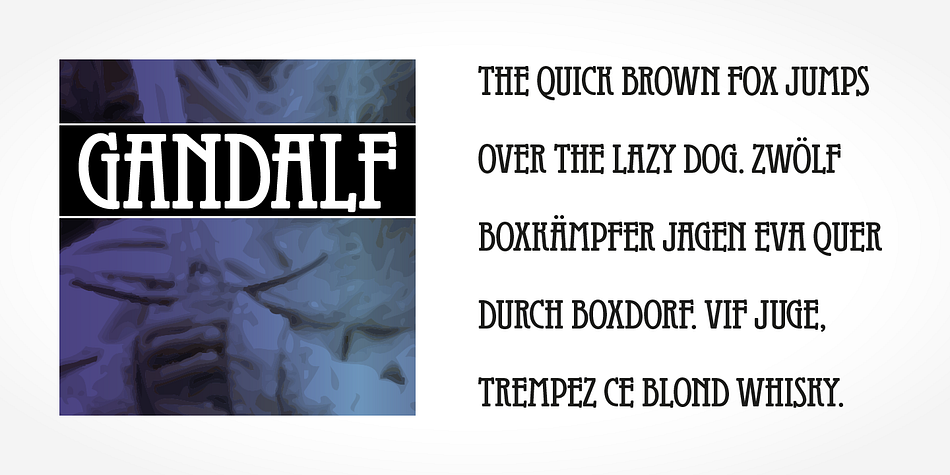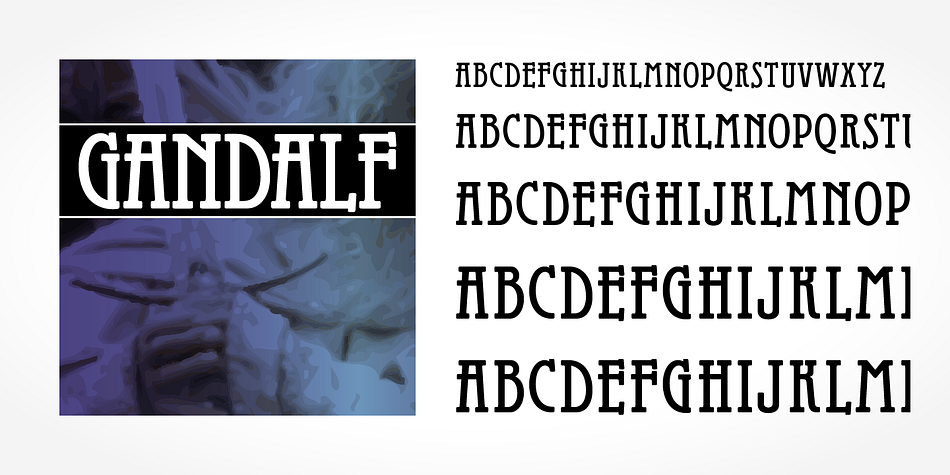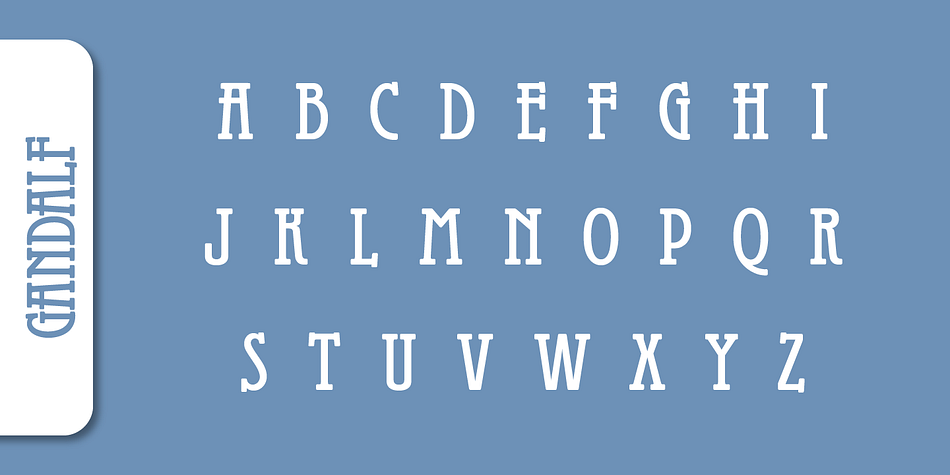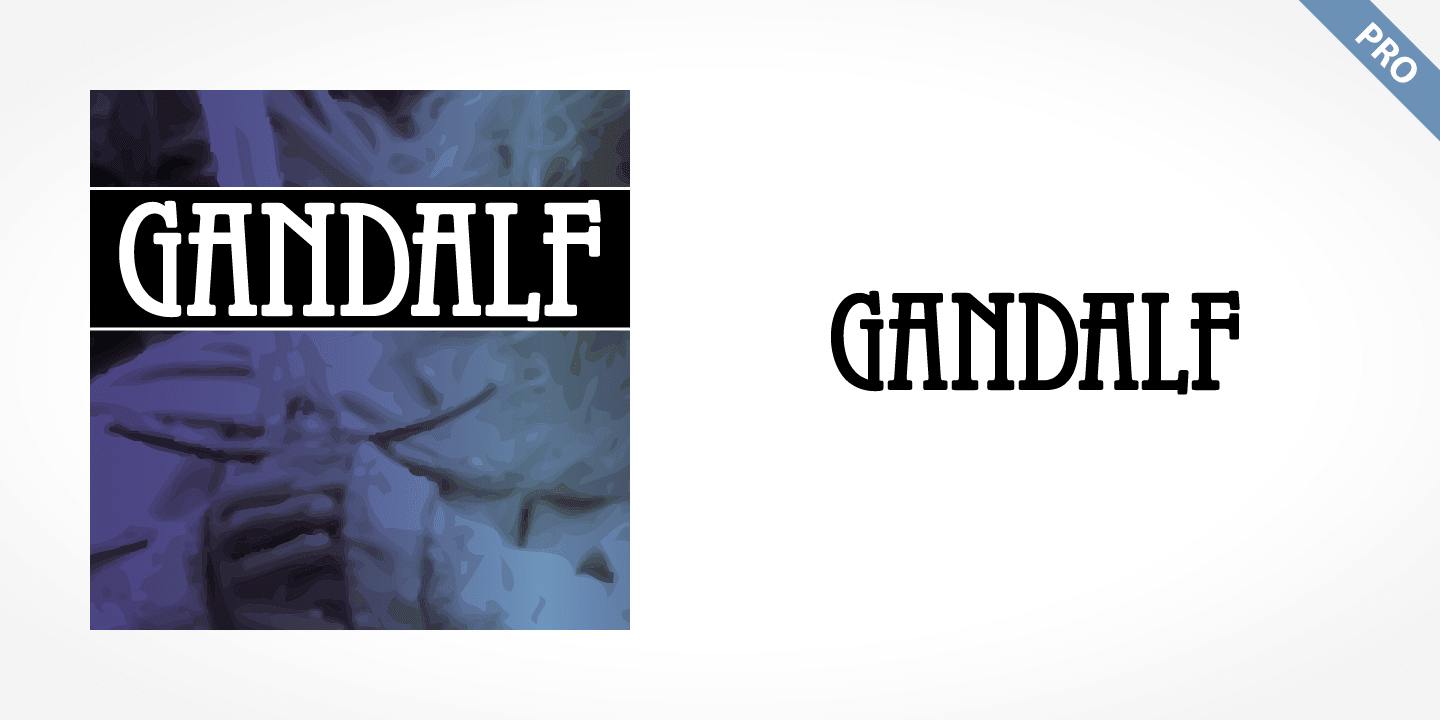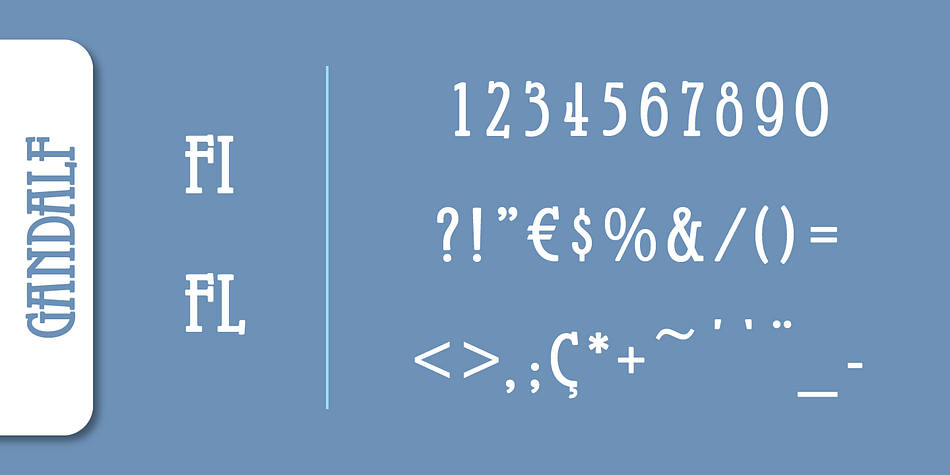
GANDALF PRO
Gandalf Pro is a display slab font published by SoftMaker.
Gandalf Pro is a decorative display face. The forms of Gandalf Pro’s letters have an antique look to them, inspired by art nouveau design. They appear tall, graceful, and condensed. Lowercase letters would distract from the quirky monumentality of Gandalf Pro, and have not been included in this typeface. Gandalf Pro’s characteristics make it the perfect choice for cards and invitations, fantasy web sites, and esoteric jewelry.
The typeface bears similarities to the Behrens Schrift, designed in the early 1900s by German architect Peter Behrens, as well as to the lettering of Charles Rennie Mackintosh, the seminal Scottish architect.